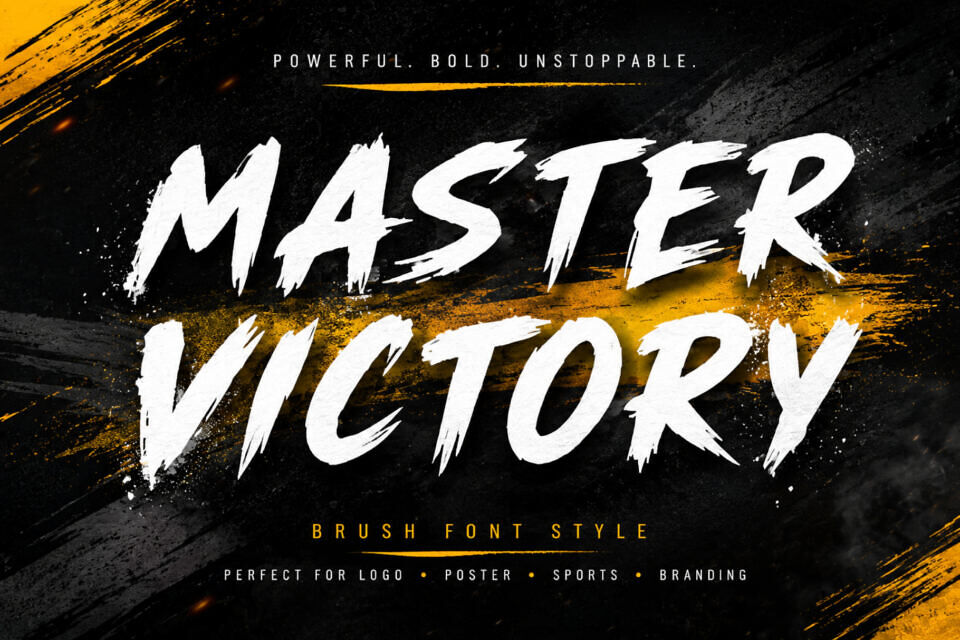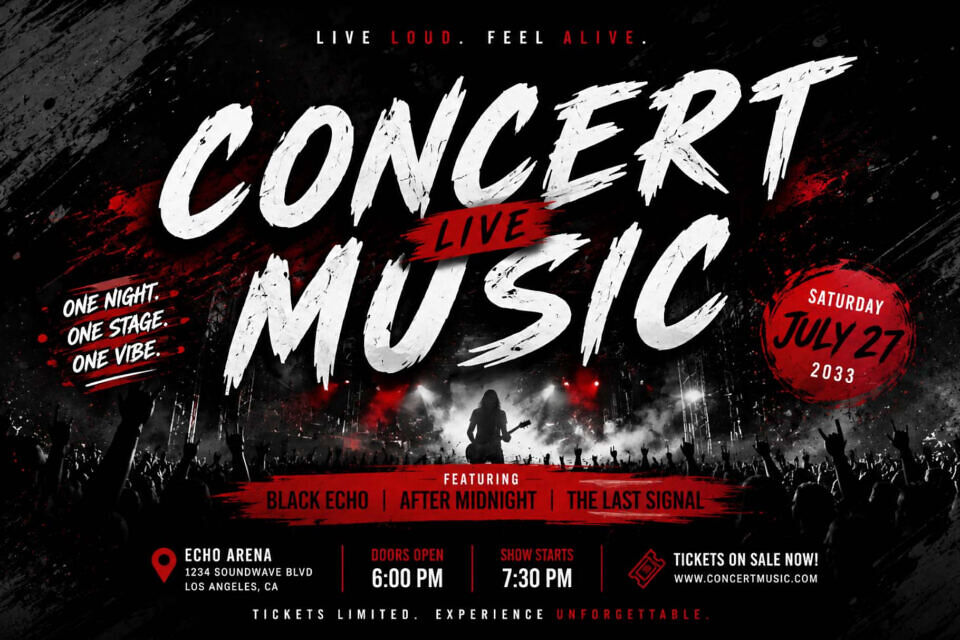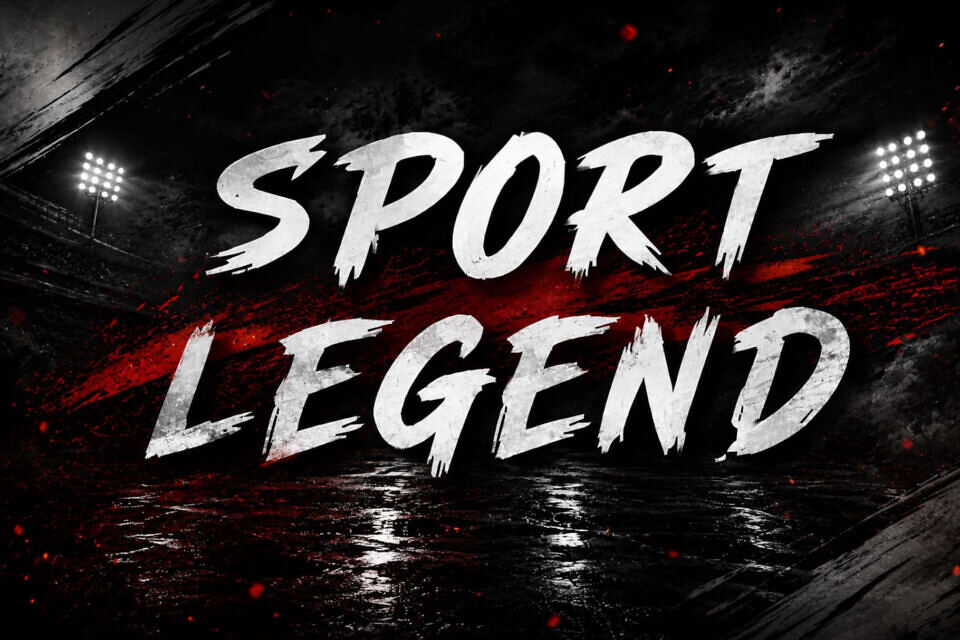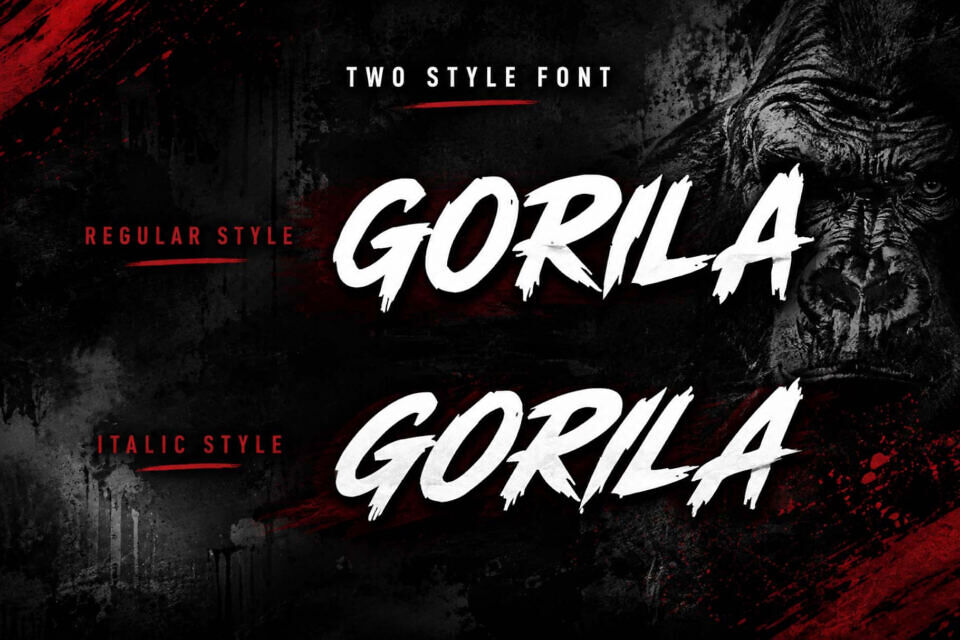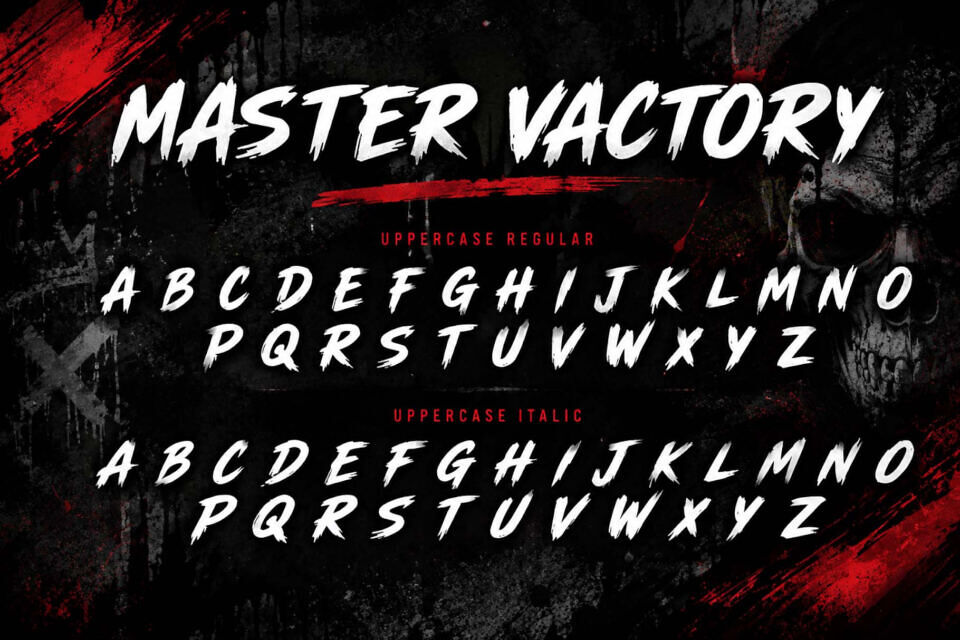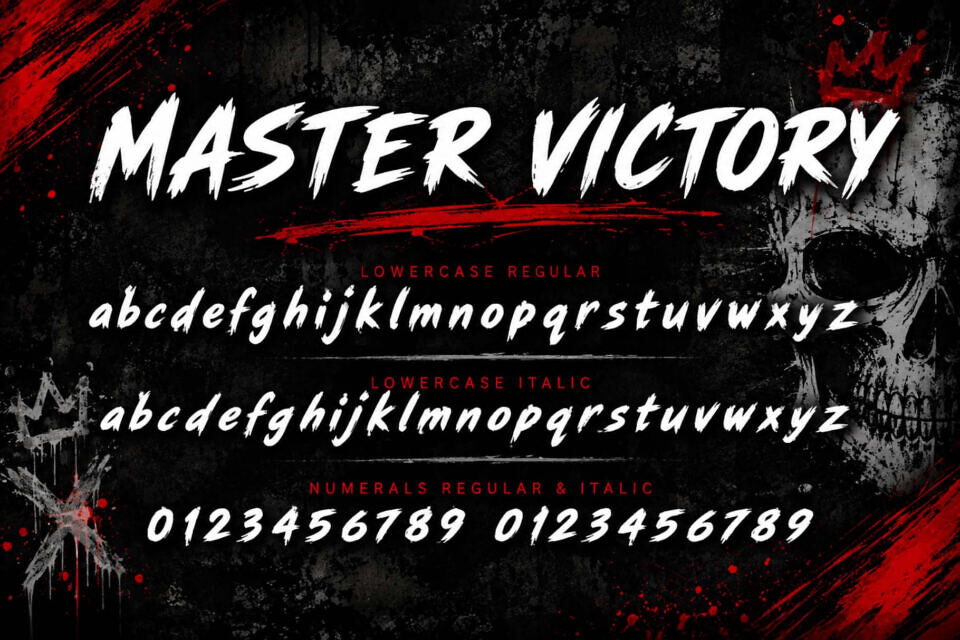
Master Victory Font
Master Victory is a bold brush font with strong, hand-painted strokes and an energetic, fearless style. It’s perfect for logos, sports branding, posters, apparel, packaging, social media, and any project that requires confidence and attention.
Its authentic brush texture adds a raw and dynamic feel, making every design look bold, modern, and full of character. With its strong capital letters and eye-catching details, Master Victory is an ideal choice for titles, action-themed designs, esports graphics, and high-impact branding projects.